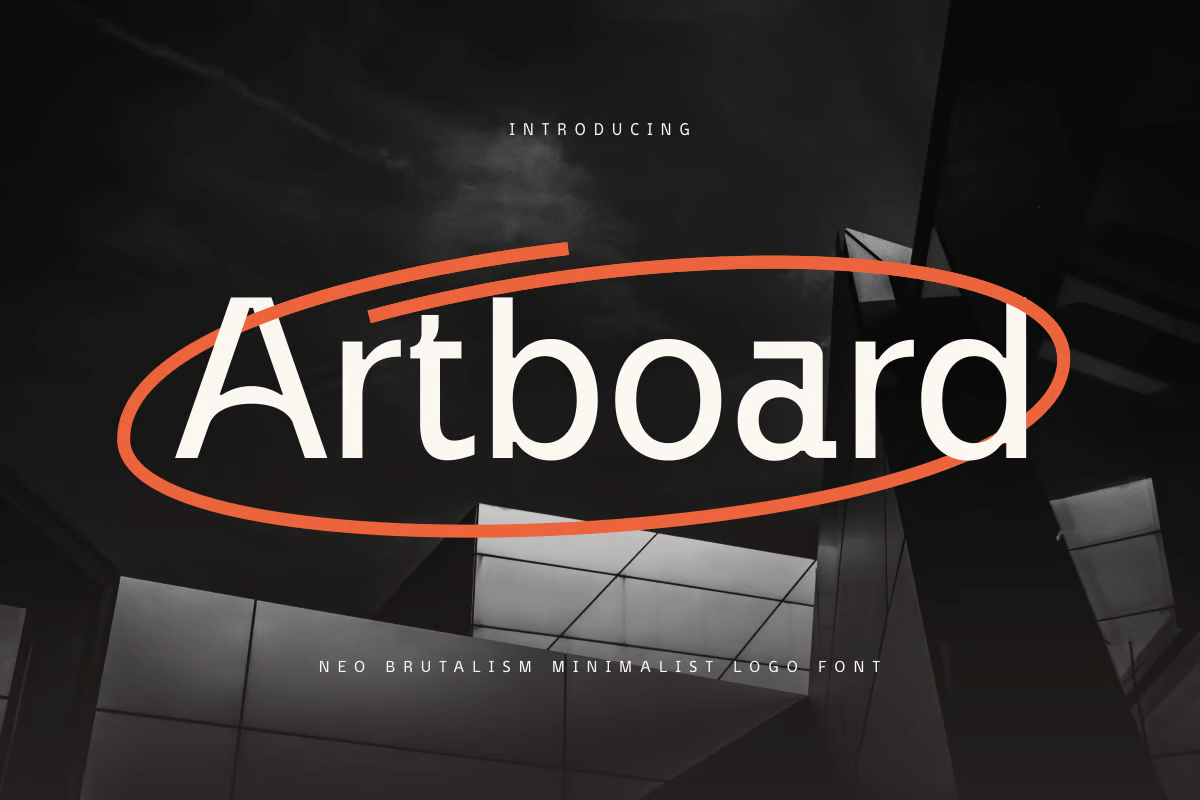
Artboard
-Neo Brutalism Minimalist Logo FontIntroducing Artboard, a sleek and modern font crafted to elevate corporate identity and professional designs. With its clean lines and contemporary style, Artboard is perfect for creating branding materials that exude sophistication and elegance.
The Story Behind Artboard:
Artboard was inspired by the precision and creativity found in the world of corporate design. Picture a bustling office where every detail matters, and every presentation is polished to perfection. This font captures that essence, offering a blend of modern aesthetics and professional appeal. Artboard is ideal for designers looking to create refined and stylish corporate materials that leave a lasting impression.
Artboard Font Features:
Sleek Design: Modern and elegant, perfect for corporate and business use.
Professional Aesthetics: Clean lines and refined curves that convey sophistication.
Versatile Usage: Ideal for logos, business cards, corporate presentations, and branding materials.
High Legibility: Clear and sharp, ensuring your message is communicated effectively.
Elegant Simplicity: Combines modern style with a professional look.
Inspirational Previews: Includes sample designs to spark your creativity.
Perfect For:
Corporate Branding: Create sleek and memorable logos for businesses and companies.
Business Materials: Design elegant business cards, letterheads, and office stationery.
Presentations: Develop polished and modern presentations for corporate meetings and pitches.
Marketing Materials: Enhance brochures, flyers, and advertisements with a touch of elegance.
With Artboard, your corporate designs will achieve a new level of professionalism and style. Whether you're working on branding, marketing materials, or business presentations, Artboard provides the perfect blend of modern design and corporate sophistication. Elevate your brand with Artboard and make a lasting impression in the business world.